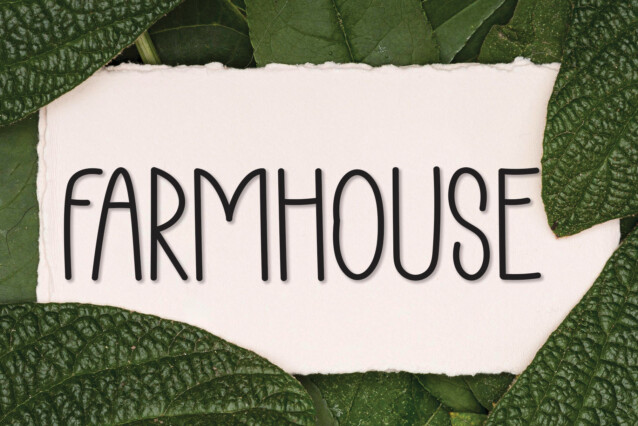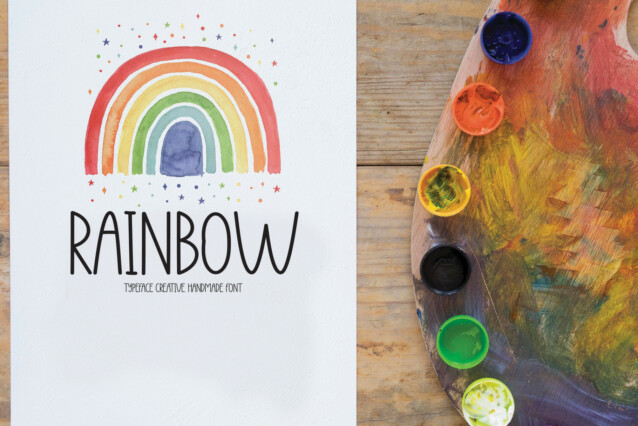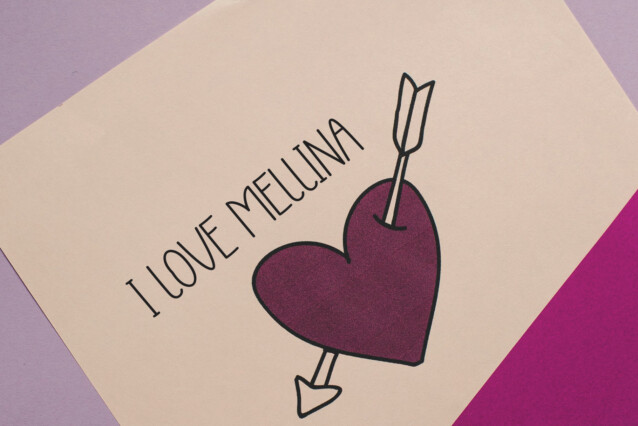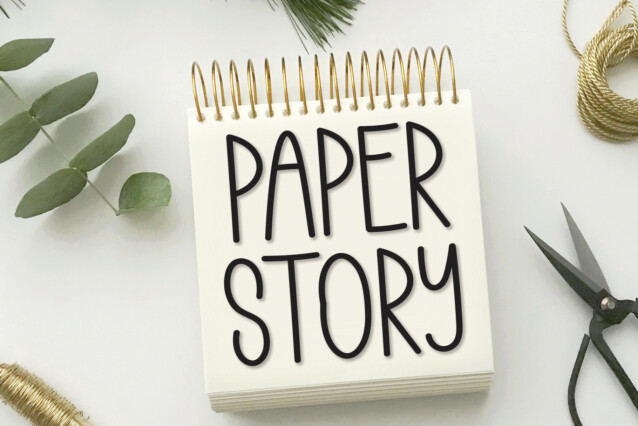
Plain Bakery Display Font
Plain Bakery Display Font – The latest style letters are perfect for wall displays, wedding invitations, social media post logos, advertisements, product packaging, product designs, labels, photography, watermarks, invitations, stationery, and any project that requires a taste for handwriting.